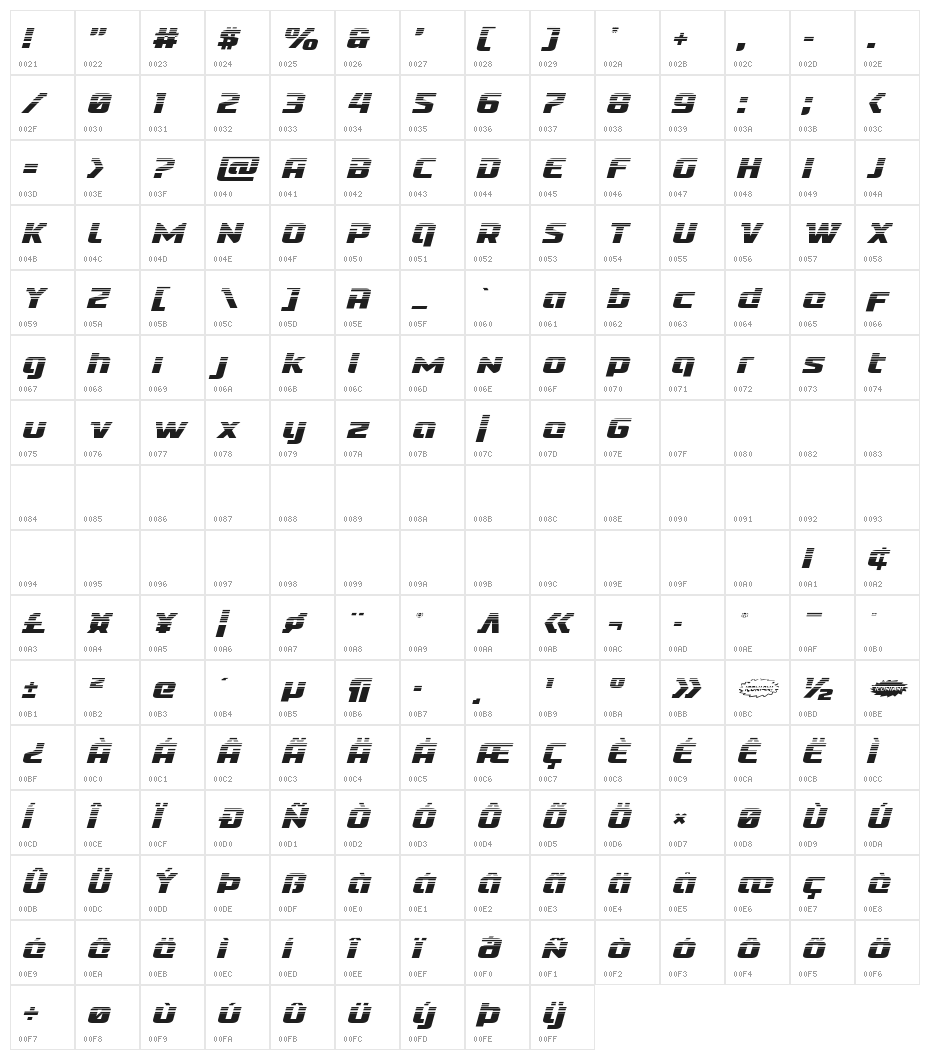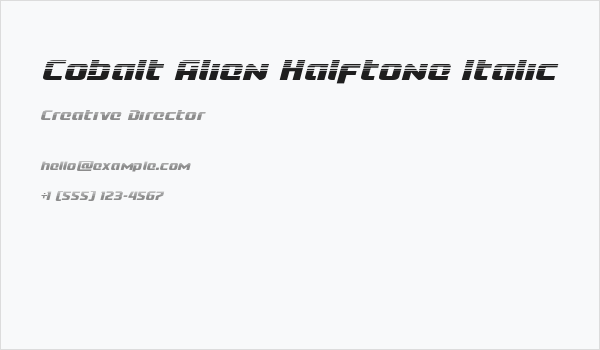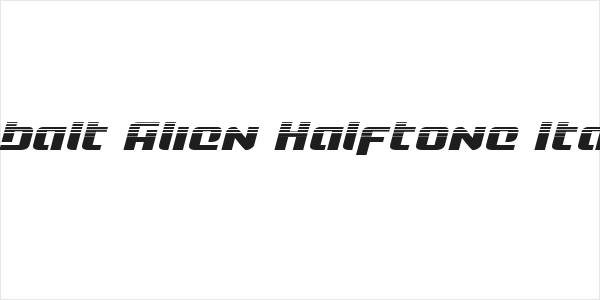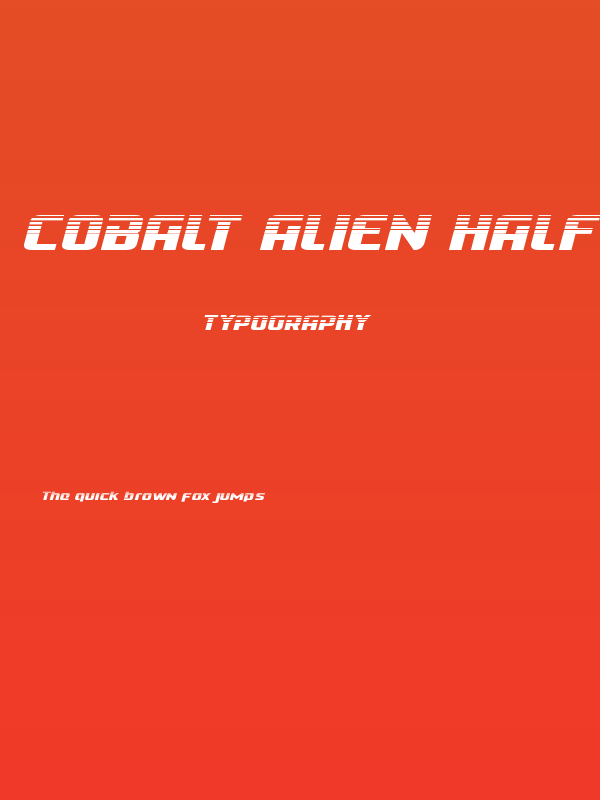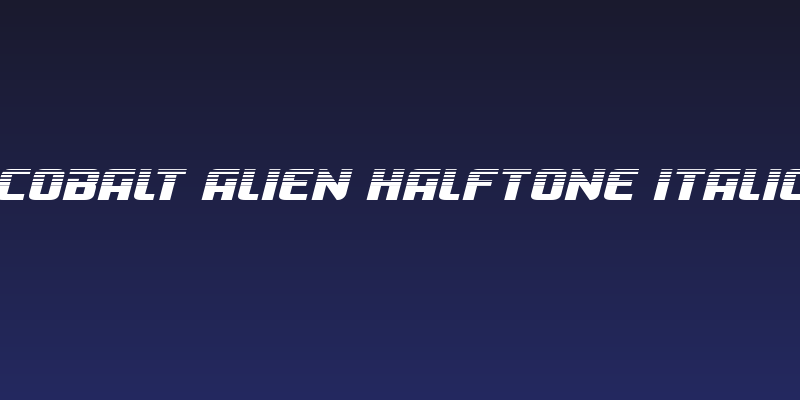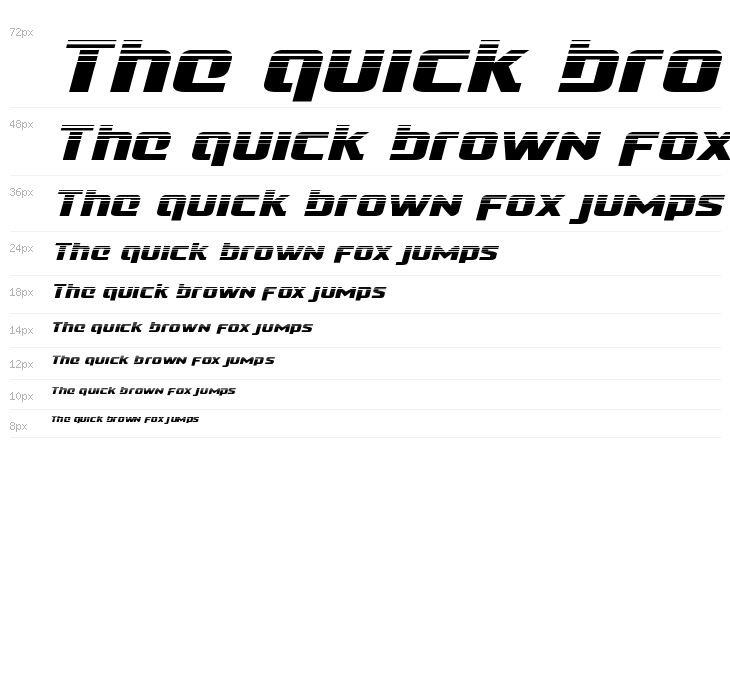
Cobalt Alien Halftone Italic Font
Cobalt Alien Halftone Italic Description
This font features a futuristic and dynamic design with a halftone effect that gives it a unique, digital appearance. The characters are bold and italicized, with a distinct slant that adds a sense of motion and speed. The uppercase and lowercase letters maintain a consistent style, with sharp edges and a geometric structure. The numbers and special characters follow the same design principles, ensuring uniformity across all glyphs. The halftone pattern creates an illusion of depth and texture, making it stand out in digital and print media. This font is ideal for projects that require a modern and edgy look.
| Overall Style | Futuristic, Dynamic |
| Proposed Projects | Ideal for sci-fi themed posters, video game graphics, tech branding, and digital art projects. |